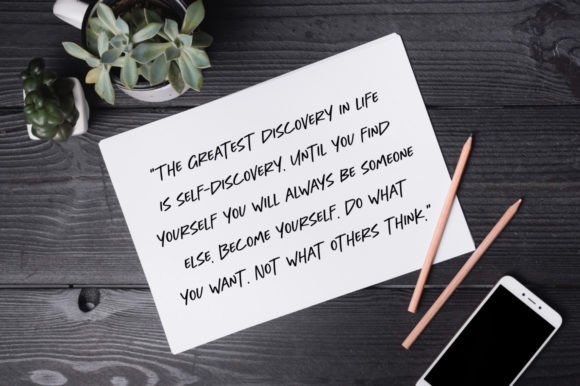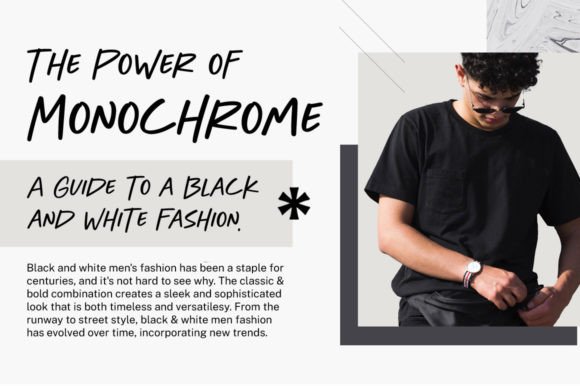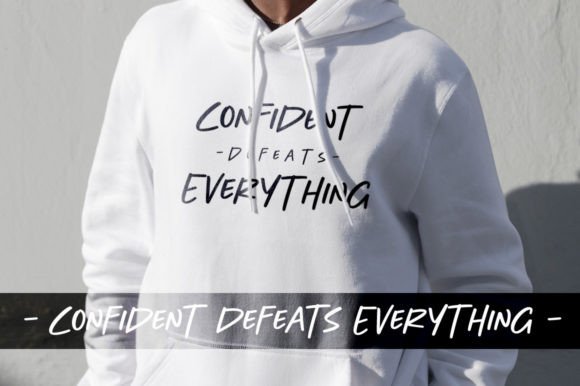
Introduction to Riverhack Font
Riverhack is a delicate and simple-lettered handwritten font, perfect for all the chalkboard quotes and teaching materials you wish to create.
Its authentic look will add a personal and realistic feel to your designs .
Key Features of Riverhack Font